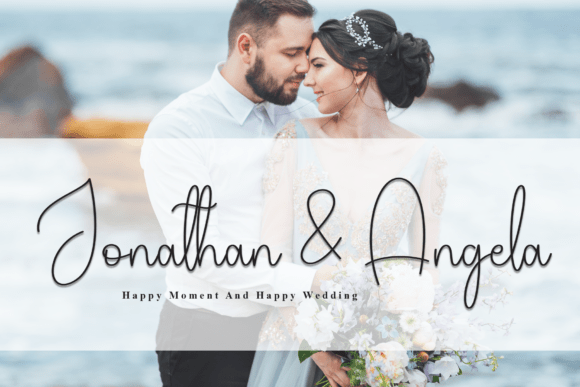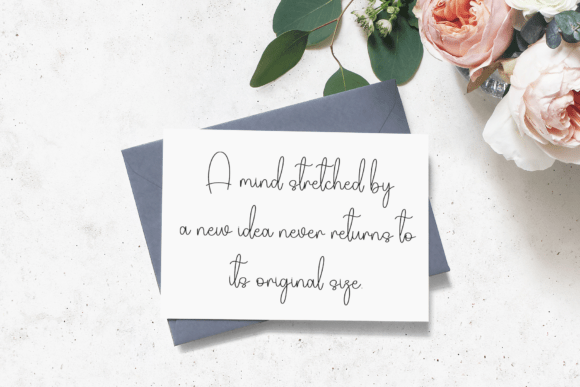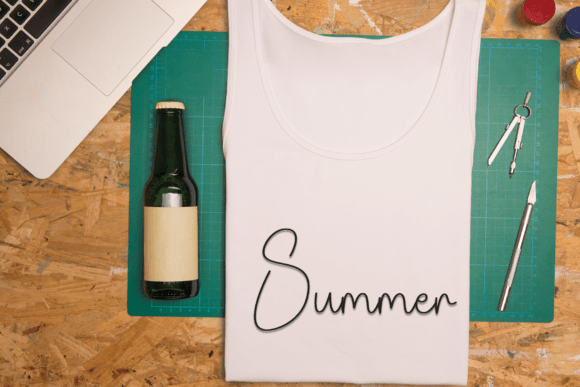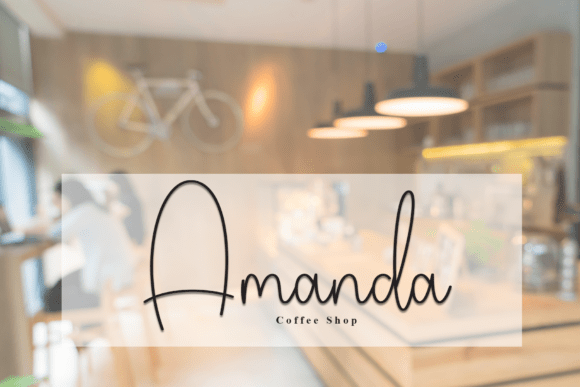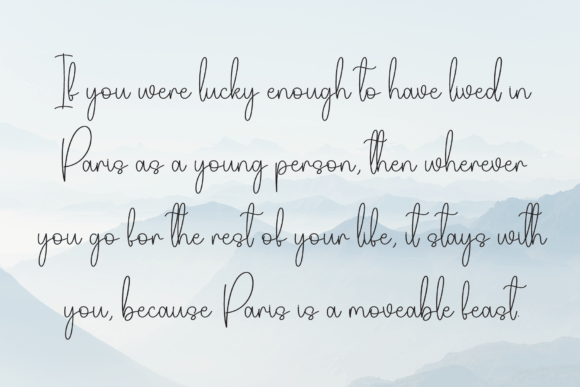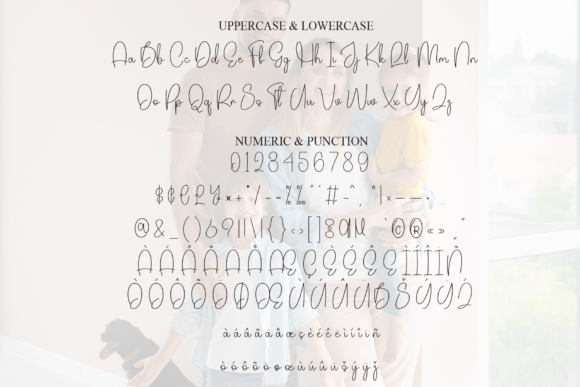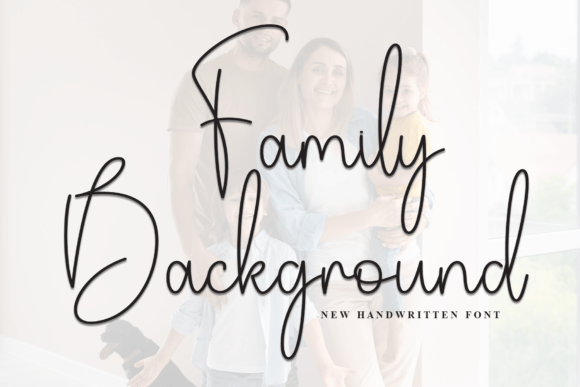
Introducing Family Background Font: The Perfect Blend of Softness and Elegance
Are you a designer or crafter looking for a font that embodies the warmth and personality of family-oriented designs? Look no further than Family Background Font, a beautiful handwritten script font that seamlessly blends softness and elegance. With its tall, flowing strokes and smooth curves, this font is perfect for a wide range of projects, from wedding invitations and keepsake prints to heartfelt branding and more.
The Characteristics of Family Background Font
Family Background Font is a unique and captivating font that boasts several distinct characteristics. Its tall, flowing strokes give it a sense of elegance and sophistication, while its smooth curves add a touch of softness and warmth. The font’s welcoming style makes it perfect for designs that require a personal and inviting feel, such as family-themed projects, wedding invitations, and keepsake prints.
Perfect for Family-Oriented Designs
Family Background Font is specifically designed with family-oriented designs in mind. Its elegant and soft appearance makes it perfect for projects that celebrate the love and connection of family. Whether you’re creating a family tree, a photo album, or a personalized keepsake, this font is sure to add a touch of warmth and personality to your design.
Ideal for Wedding Invitations and Keepsake Prints
Wedding invitations and keepsake prints are special occasions that require a font that is both elegant and personal. Family Background Font fits the bill perfectly, with its flowing strokes and smooth curves adding a touch of sophistication and romance to any design. Whether you’re creating a formal wedding invitation or a heartfelt keepsake print, this font is sure to make your project stand out.
Adding Warmth and Personality to Your Designs
One of the standout features of Family Background Font is its ability to add warmth and personality to any design. Its welcoming style makes it perfect for projects that require a personal touch, such as family-themed designs, wedding invitations, and keepsake prints. With this font, you can create designs that are not only beautiful but also heartfelt and inviting.
Key Features of Family Background Font
• Graceful handwritten script font: Family Background Font is a beautiful handwritten script font that adds a touch of elegance and sophistication to any design.
• Tall, flowing strokes: The font’s tall, flowing strokes give it a sense of elegance and sophistication, making it perfect for formal and informal designs.
• Smooth curves: The font’s smooth curves add a touch of softness and warmth, making it perfect for family-oriented designs and heartfelt branding.
• Welcoming style: The font’s welcoming style makes it perfect for designs that require a personal and inviting feel.
Family Background Font is a beautiful and versatile font that is perfect for designers and crafters looking to add a touch of elegance and warmth to their designs. With its tall, flowing strokes and smooth curves, this font is ideal for family-oriented designs, wedding invitations, keepsake prints, and heartfelt branding. Whether you’re creating a formal or informal design, Family Background Font is sure to make your project stand out.